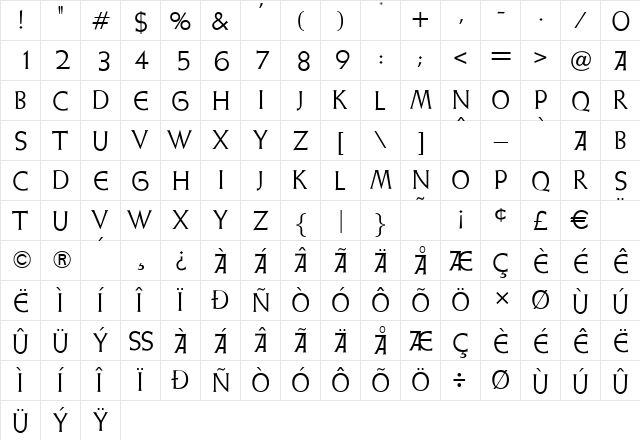
Weiss Initialen Alternates Regular
Design Context for Weiss Initialen Alternates Typeface
Weiss Initialen Alternates takes a measured approach to typography — its balanced proportions and neutral character make it a reliable workhorse for both digital and print work.